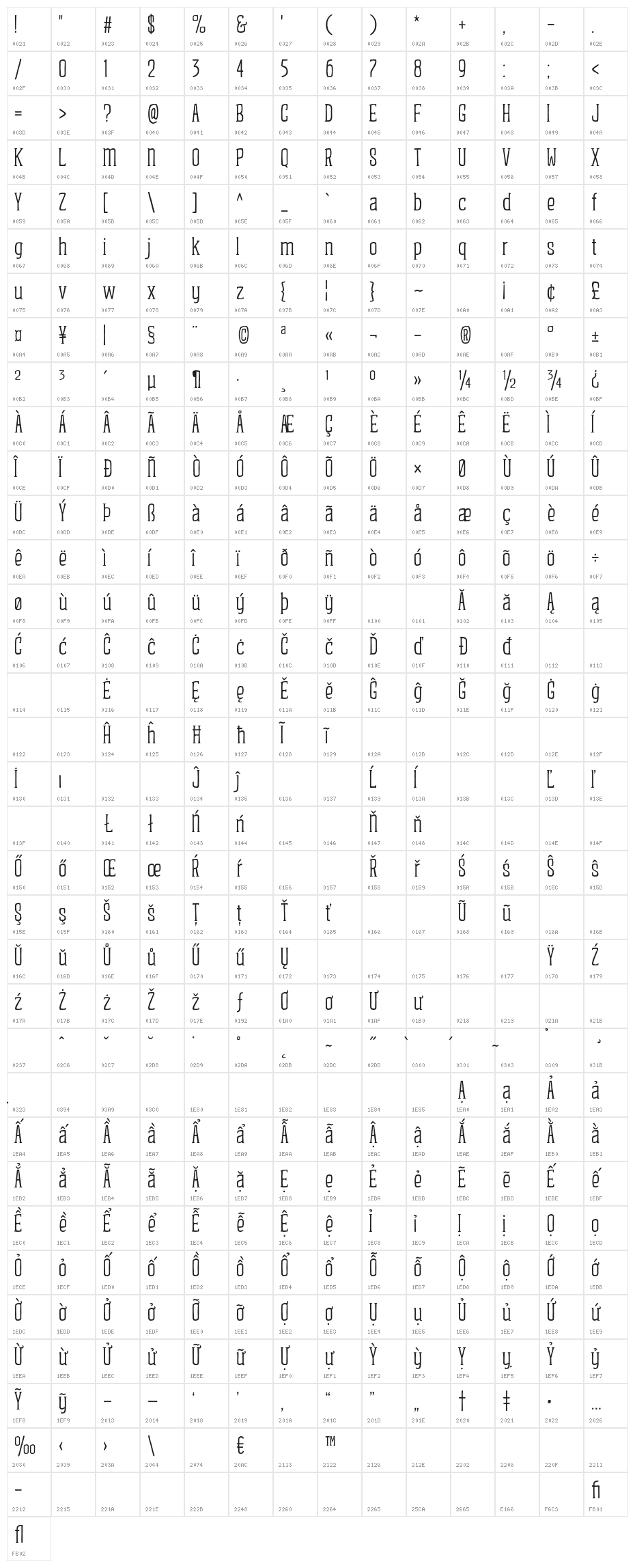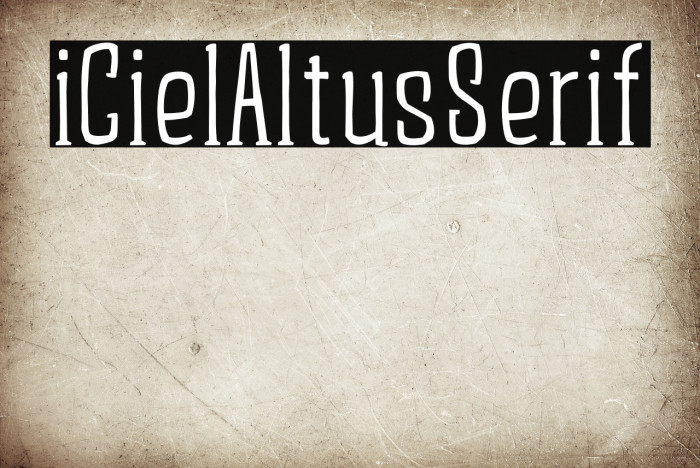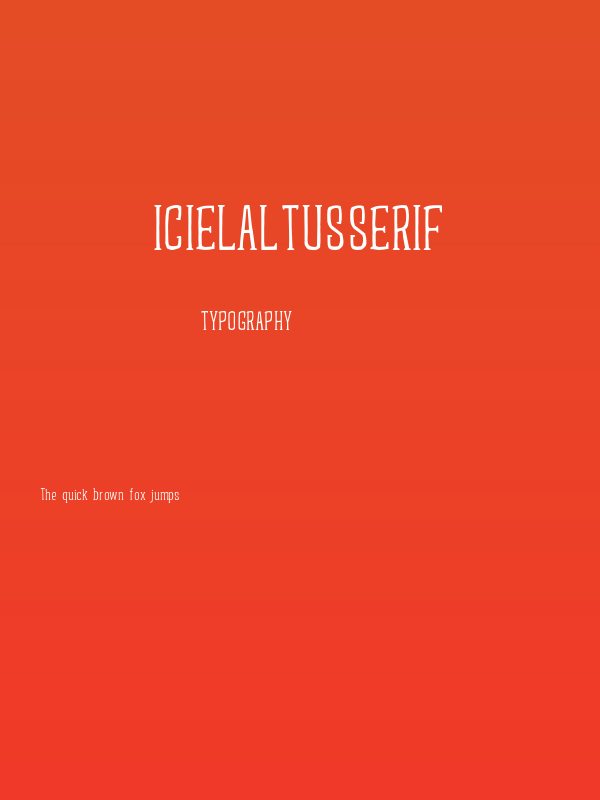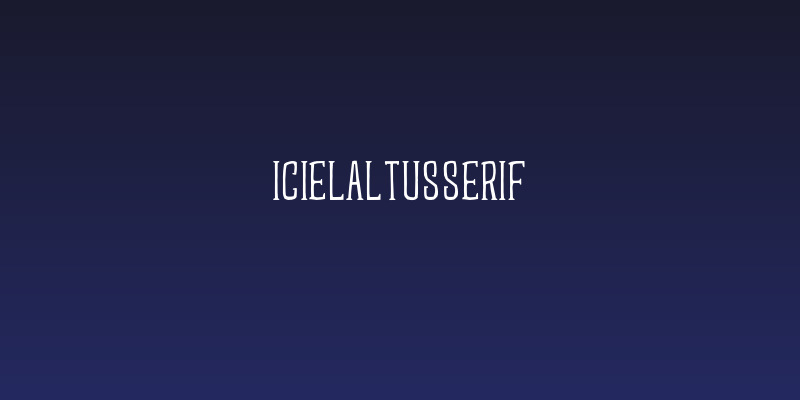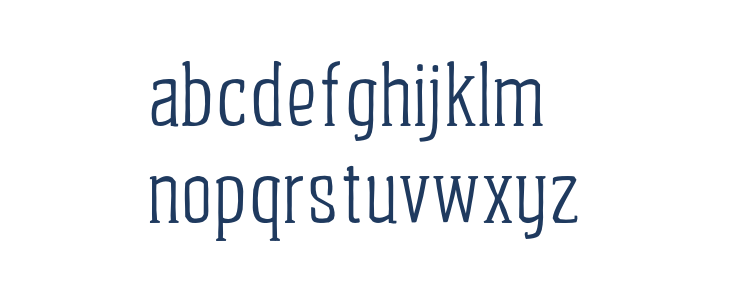
iCielAltusSerif Font
iCielAltusSerif Description
This font features a unique blend of modern and vintage aesthetics, characterized by its tall, narrow letterforms and subtle serifs. The uppercase letters are particularly elongated, giving a sense of elegance and sophistication. The lowercase letters maintain a consistent style, with a slightly more relaxed form that complements the uppercase. Numbers are clear and legible, designed to match the overall style seamlessly. Special characters are thoughtfully crafted, ensuring they fit well within the font's aesthetic. The font's overall appearance is both stylish and functional, making it suitable for a variety of design applications.